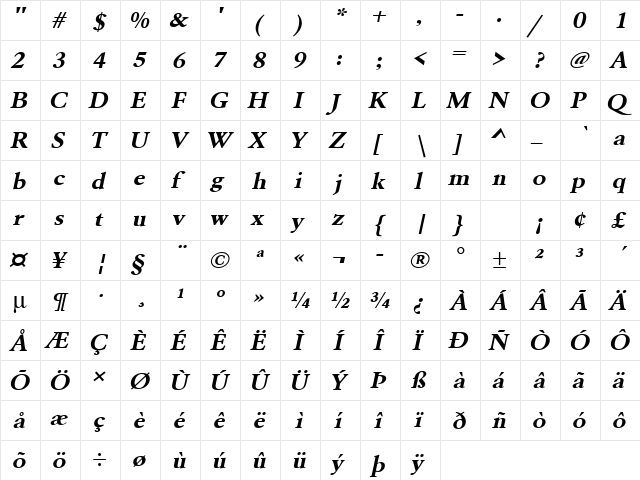
URWGaramondTExtWid Bold Oblique Font Preview
Design Context for URWGaramondTExtWid Typeface
URWGaramondTExtWid is a composed and adaptable typeface that performs quietly and consistently across a wide range of design contexts. The dynamic lean of this cut emphasises speed and emphasis in any layout. The heavy weight commands attention and anchors typographic hierarchies.